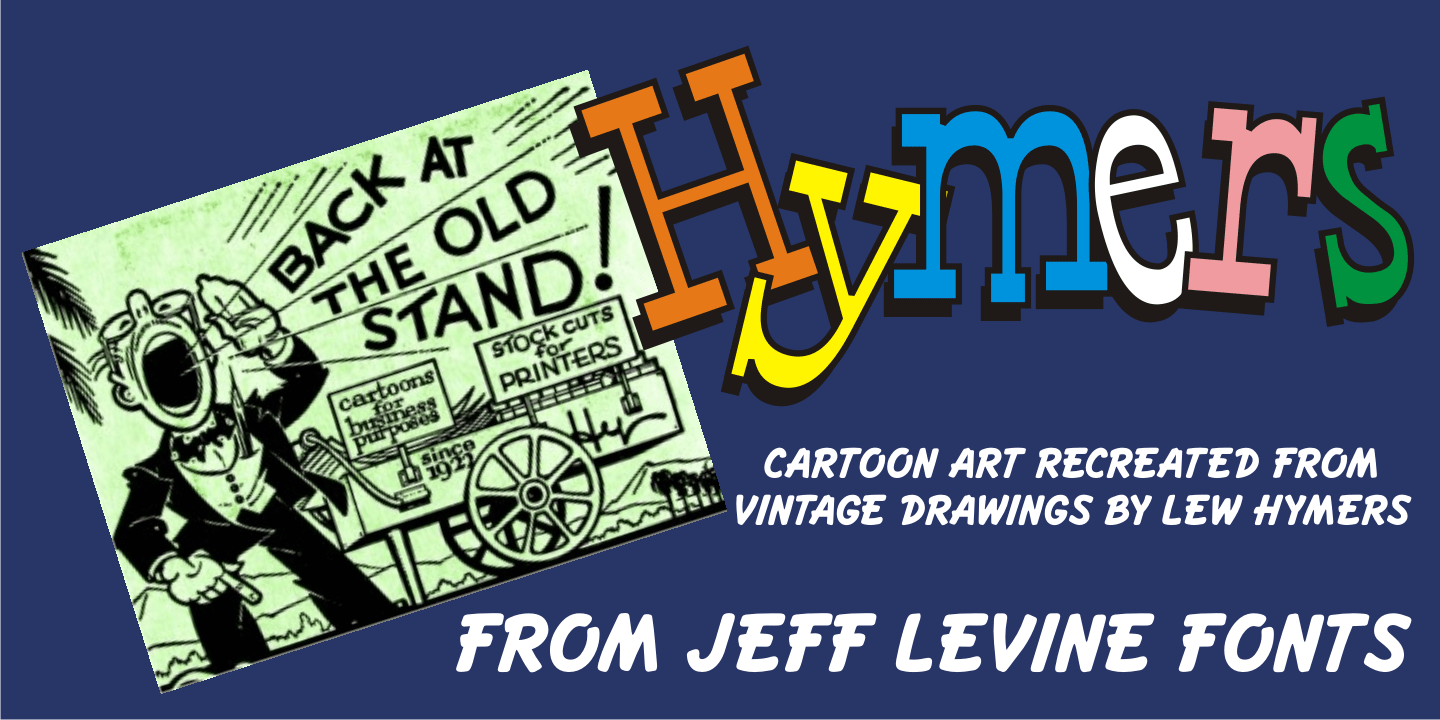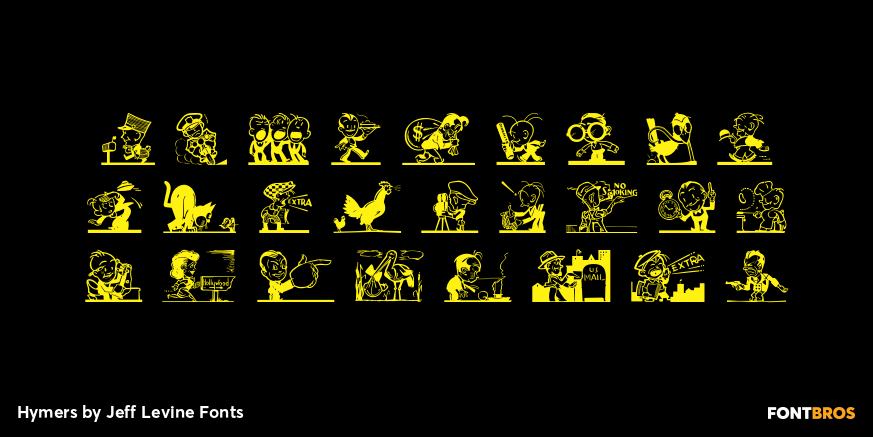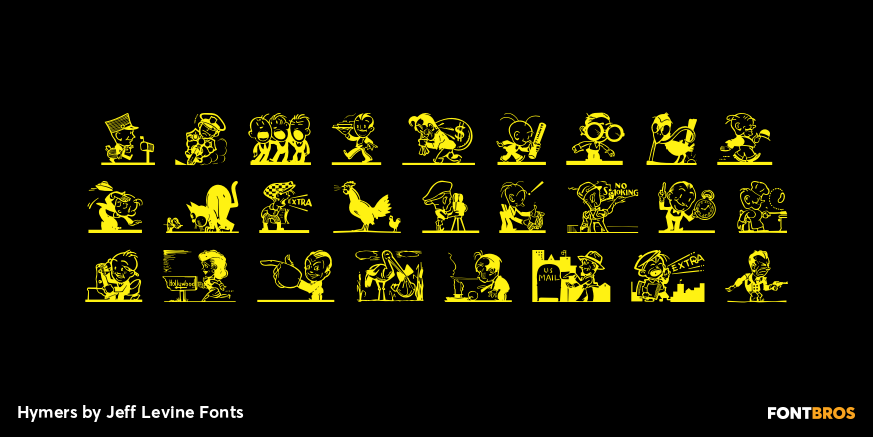
Hymers
Born on May 8, 1892 in Reno Nevada, Lewis Franklin (“Lew” ) Hymers left an indelible mark as a caricaturist, cartoonist and graphic artist. At the age of twenty [in 1912] he worked for the San Francisco Chronicle. During World War I he worked for the Washington Post. He even was employed for a time by Walt Disney as an animator - but most of his life was spent in either Tujunga, California or his birthplace of Reno, Nevada as a self-employed illustrator. Hymers inked a feature for the Nevada State Journal called “Seen About Town”, which was published during the 1930s and 1940s. In this panel, he caricaturized many of the familiar faces around Reno. He also designed signs, logos, post cards and numerous other commercial illustrations for clients, but what has endeared him to a number of fans was his vast library of stock cuts (the predecessor to paper and electronic clip art) which feature his humorous characters in various professions and life situations. So popular is his work amongst those “in the know” that a clip art book collection of over seven hundred of his drawings that was issued by Dover Publications [but long out of print] commands asking prices ranging from just under $15 to well over $100 for a single copy. Lew Hymers passed away on February 5, 1953 just a few months shy of his 61st birthday. Although his artwork depicts the 1930s and 1940s lifestyles, equipment and conveniences, more than sixty years after his death they stand up amazingly well as cheerful pieces of nostalgia. The twenty-seven images (and some variants) in Hymers JNL were painstakingly re-drawn from scans of one of his catalogs and is but just a tiny fraction of the hundreds upon hundreds of illustrations from the pen of this prolific artist.